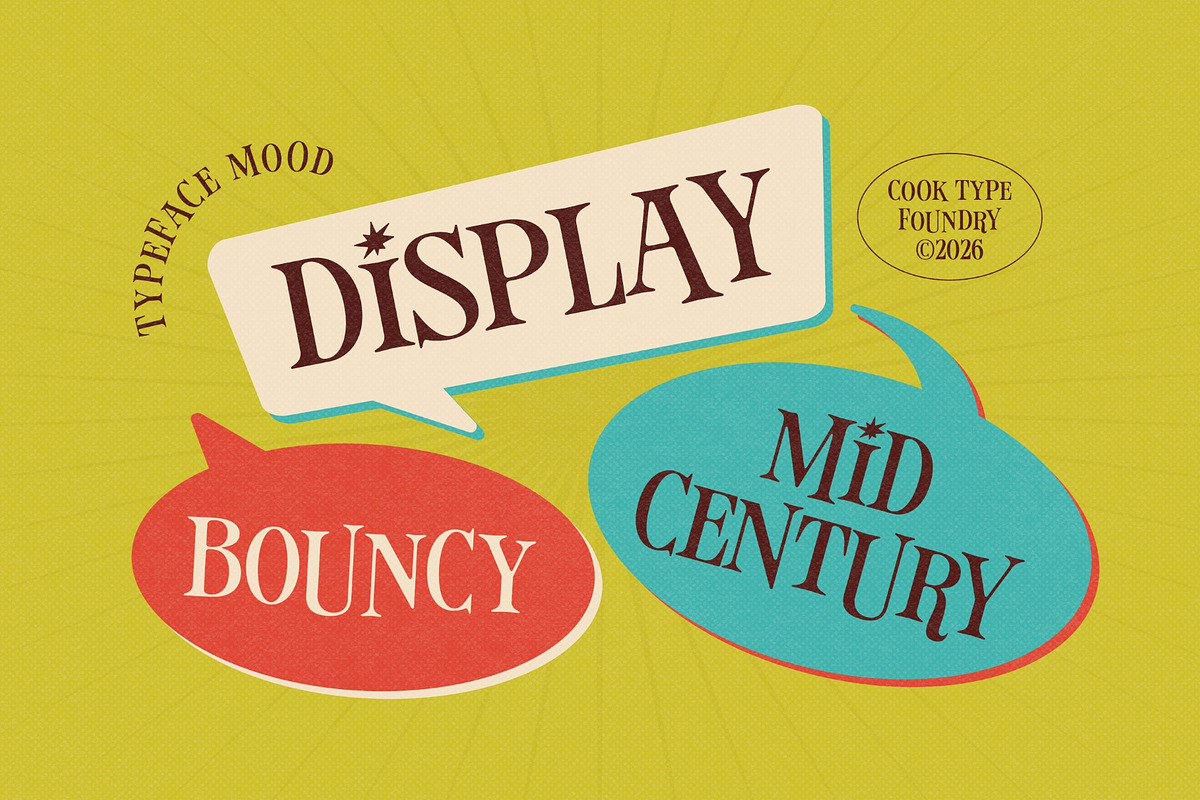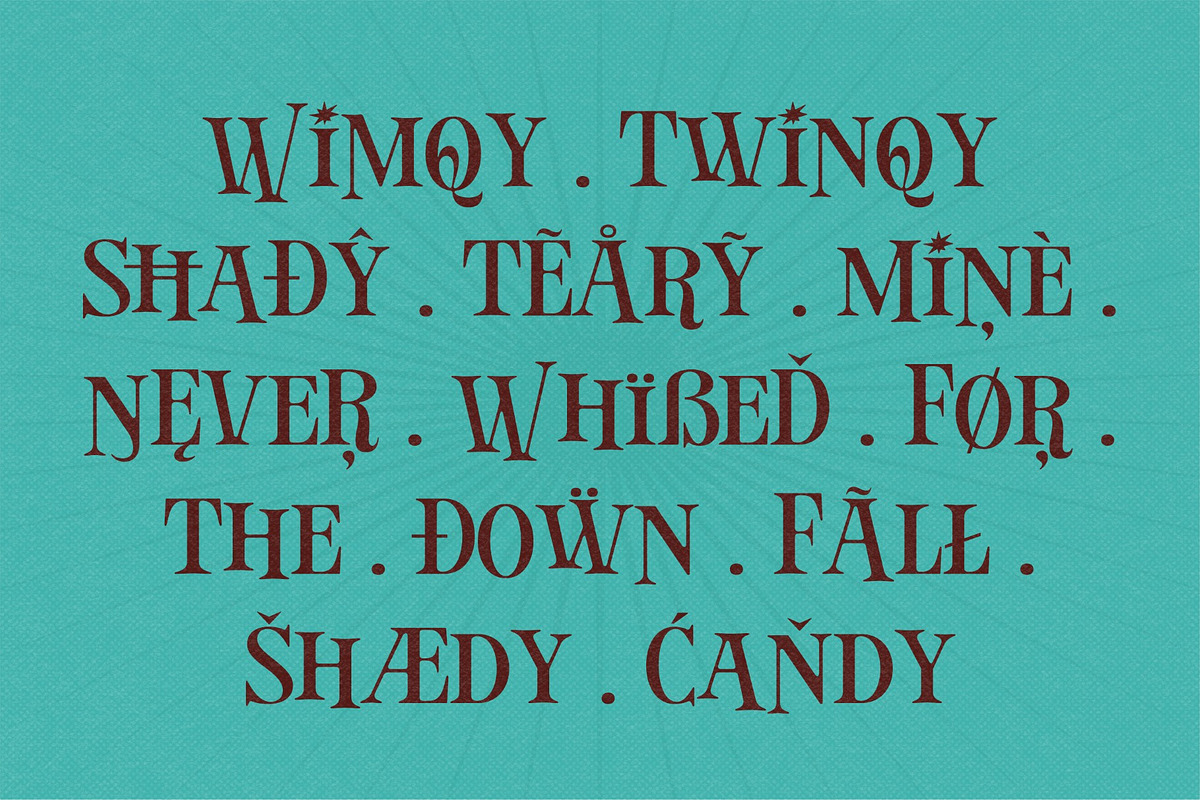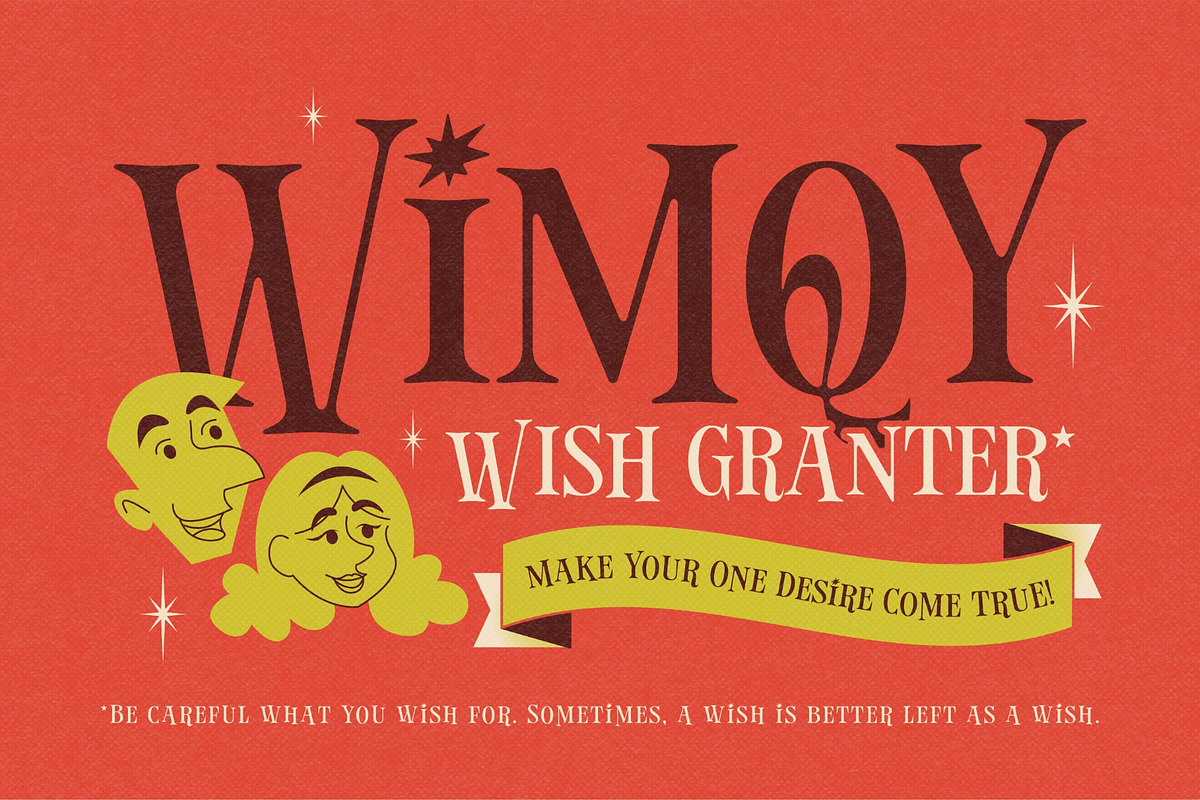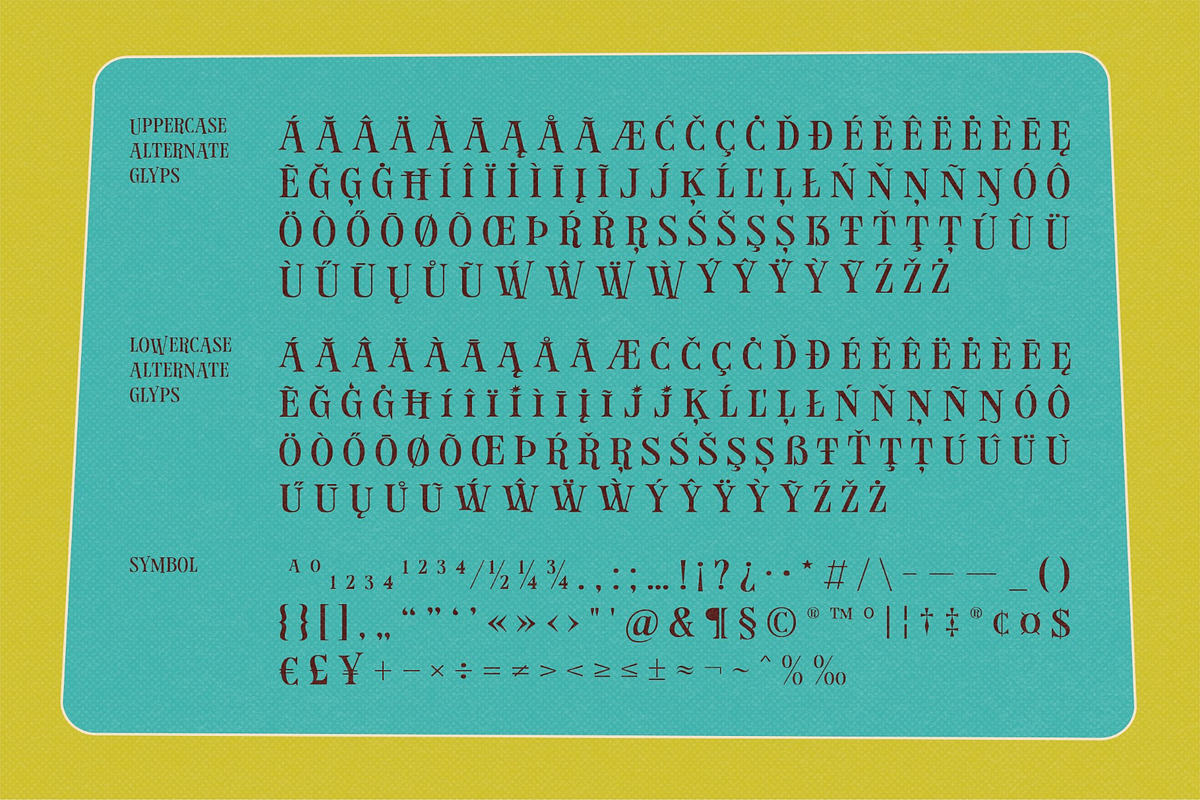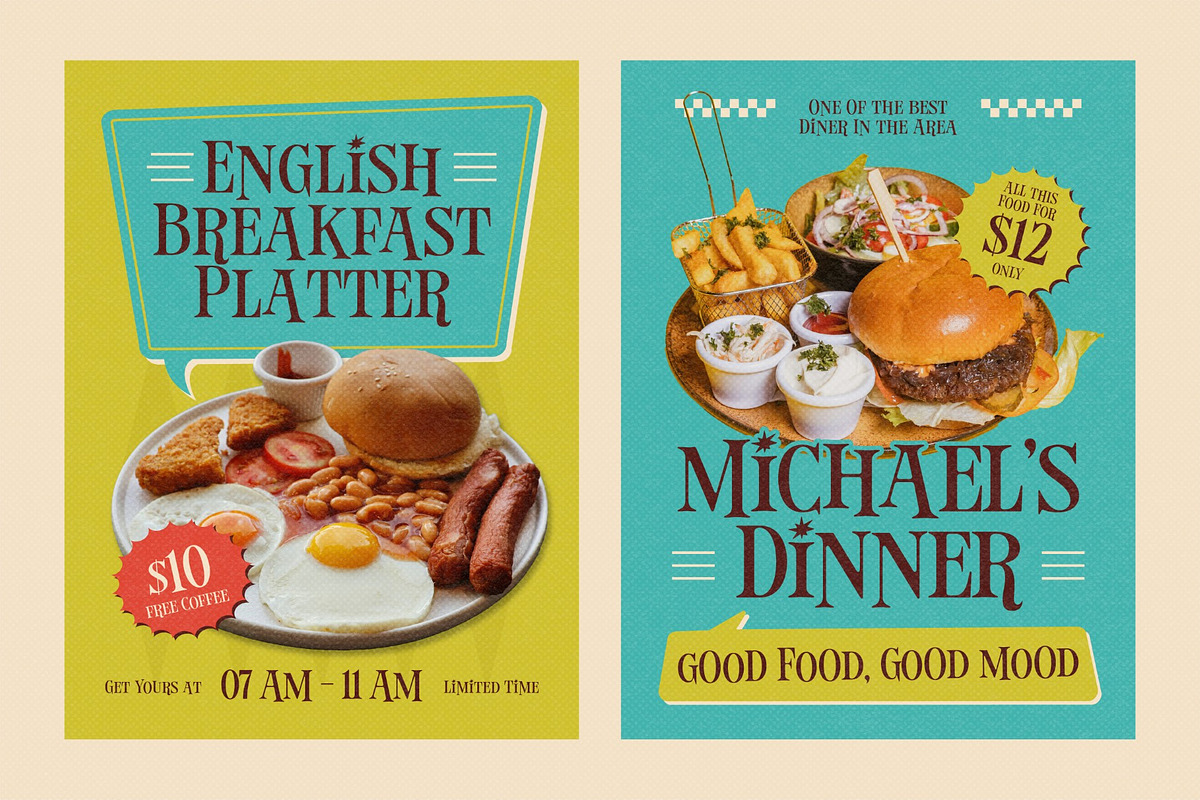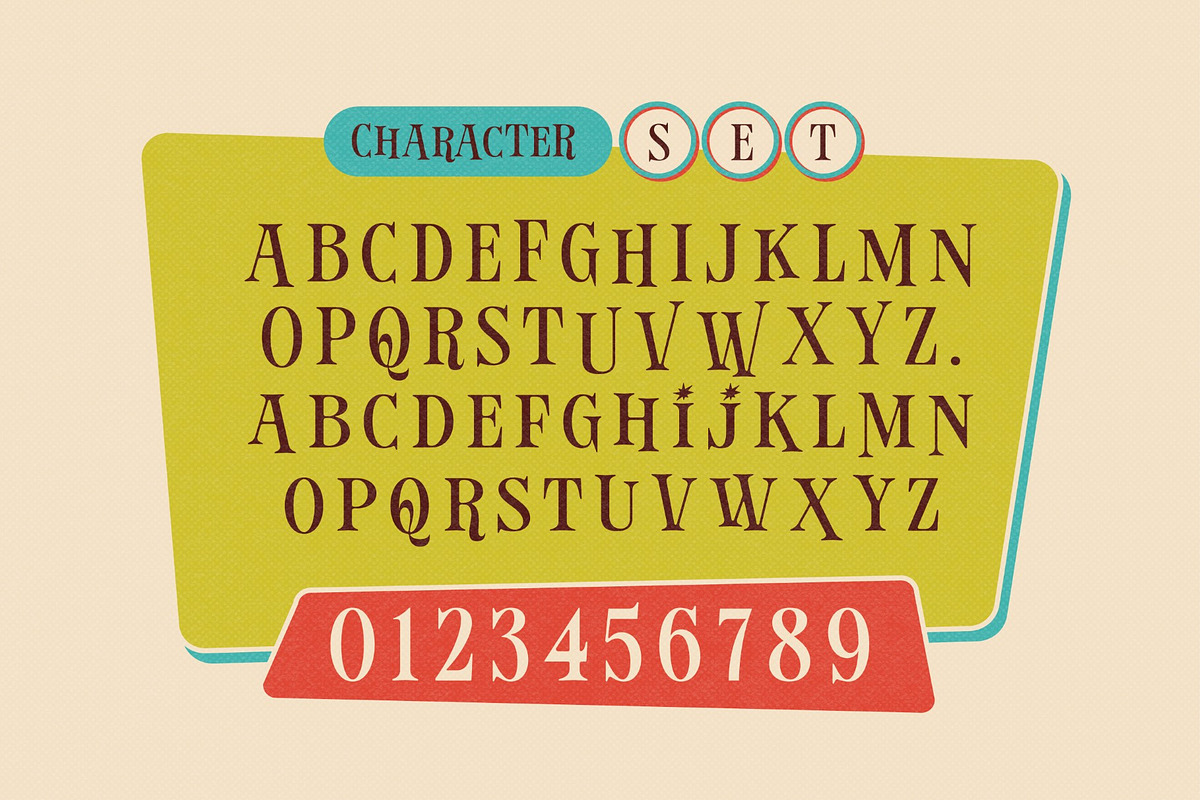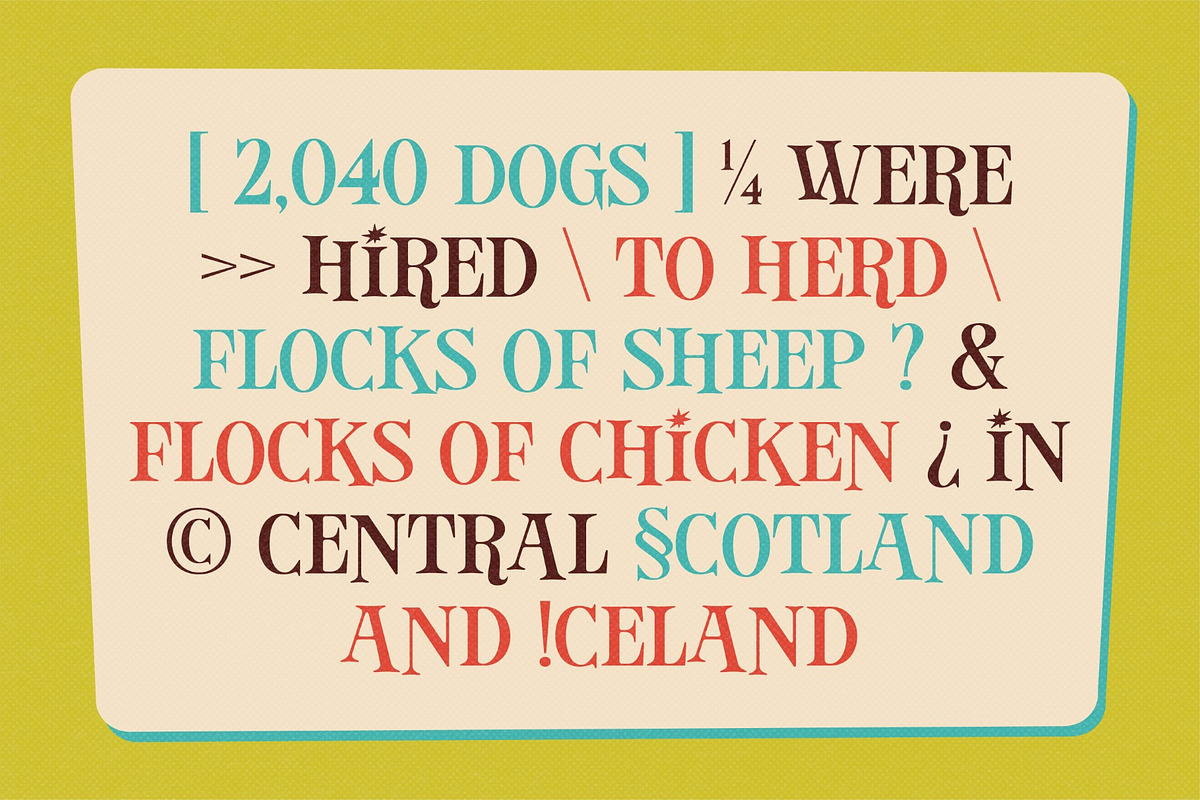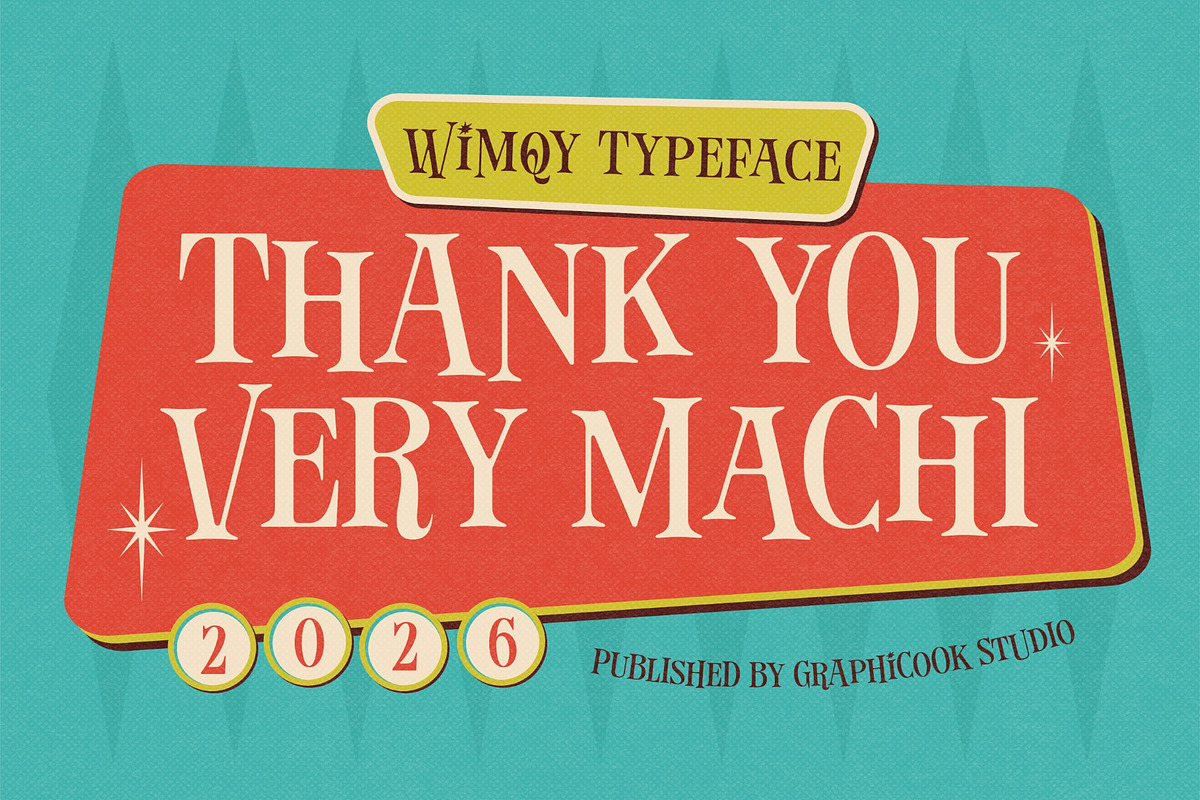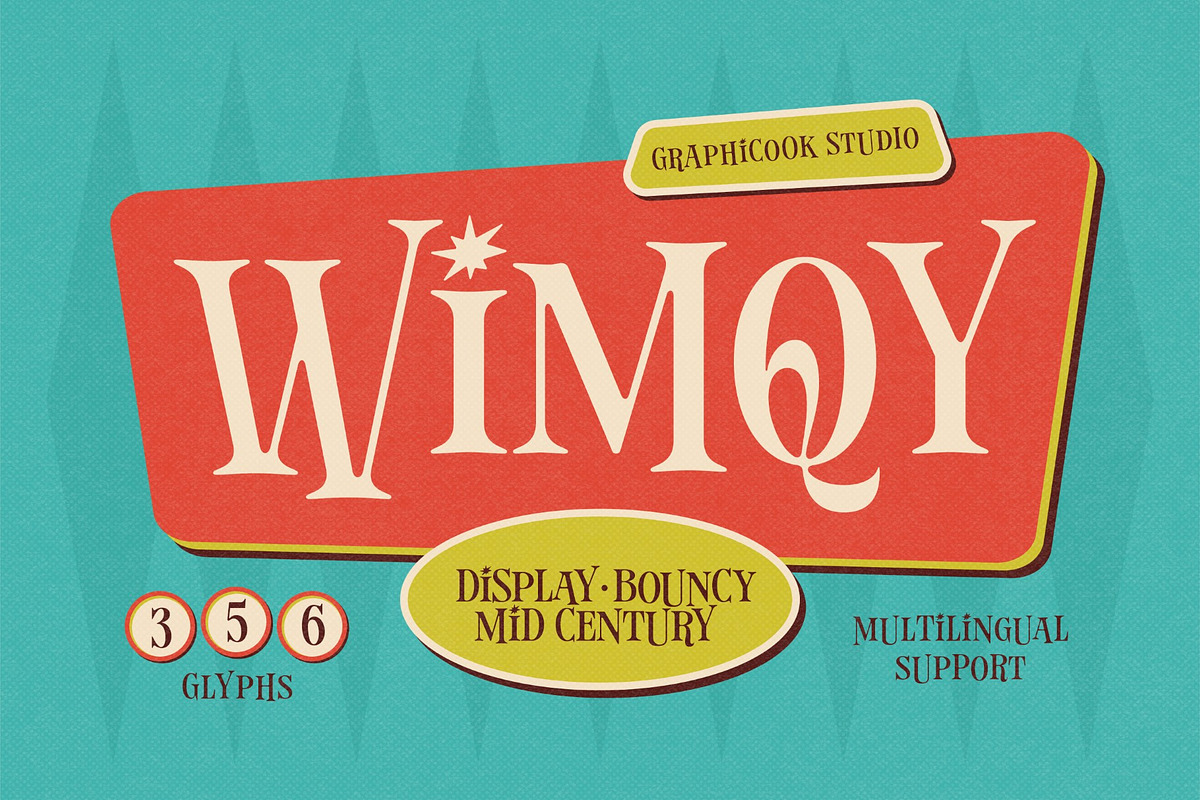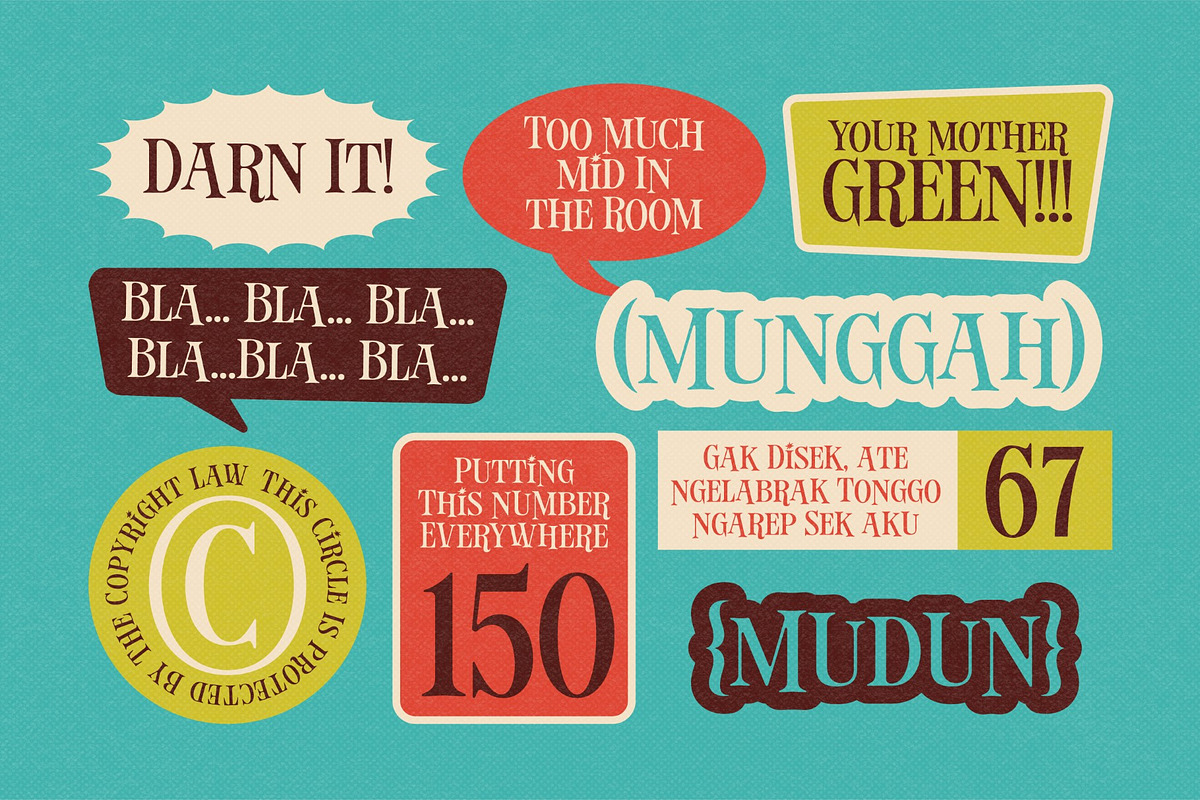
Wimqy
Wimqy is a sophisticated and expressive display typeface inspired by the elegant character of mid-century typography. Featuring high-contrast serif shapes, graceful curves, distinctive swashes, and decorative details, Wimqy combines vintage charm with a bold and stylish personality.
It is perfect for headlines, logotypes, magazines, packaging, quotes, movies, games, cover albums, book covers, and flyers, it's a perfect solution for creating eye-catching designs that stand out in any context.